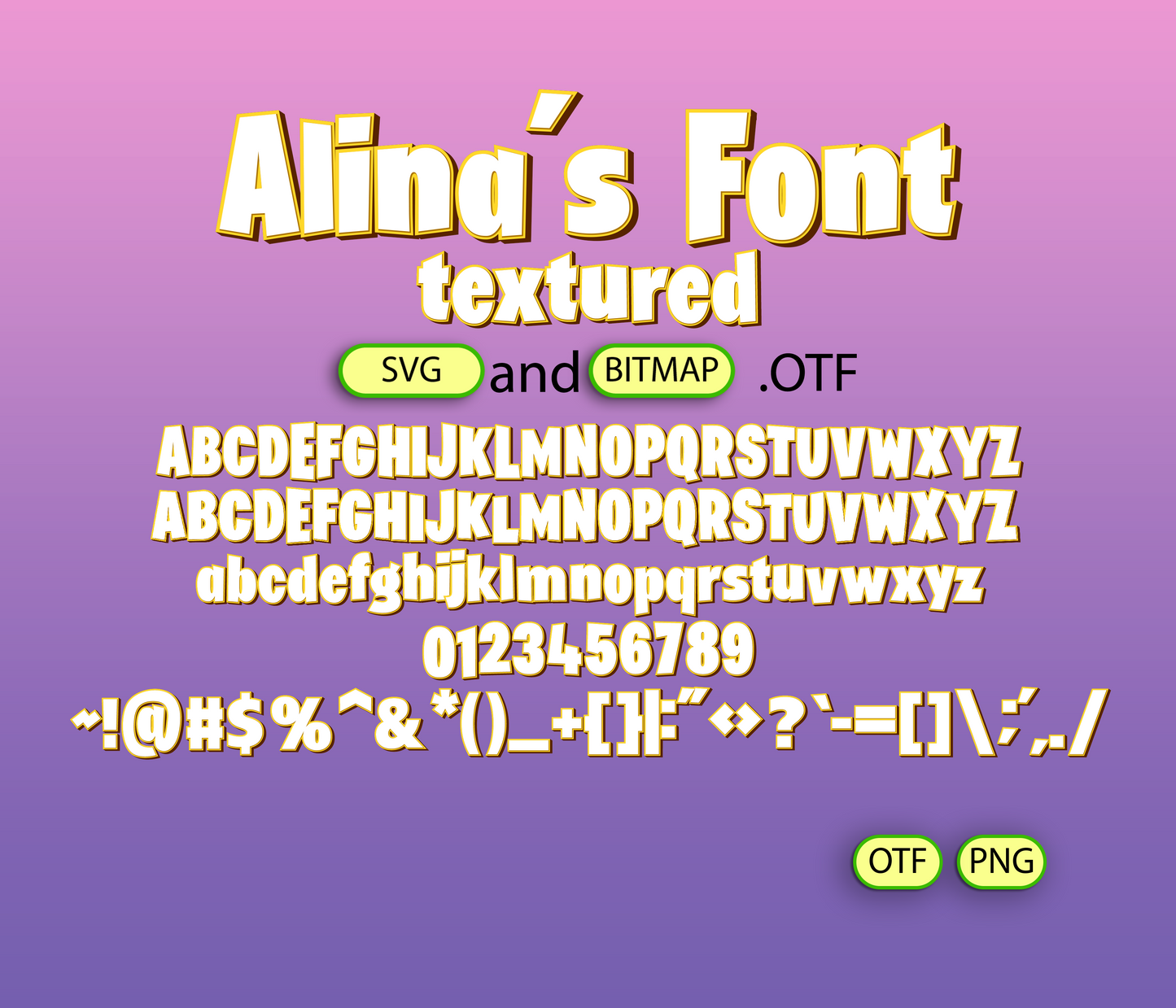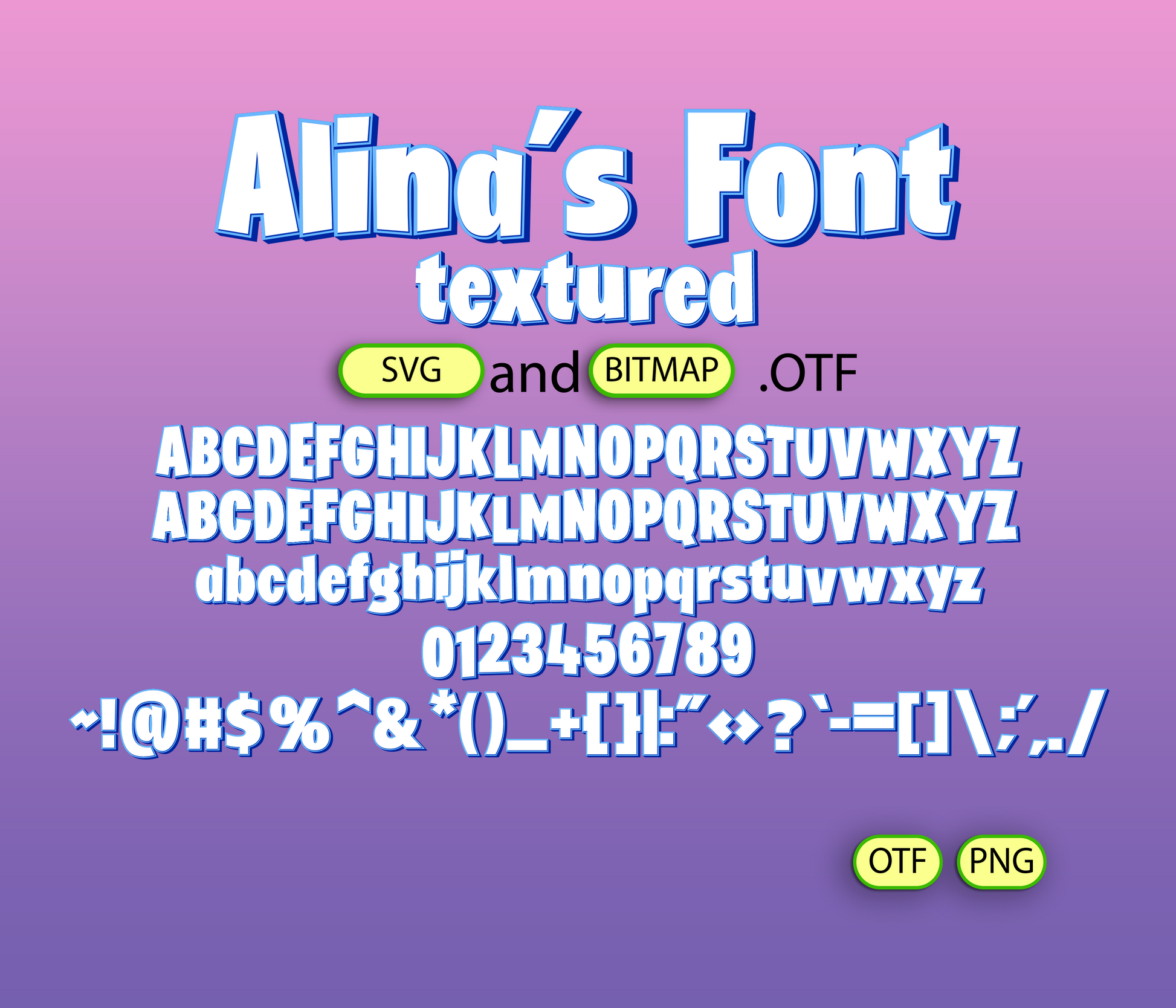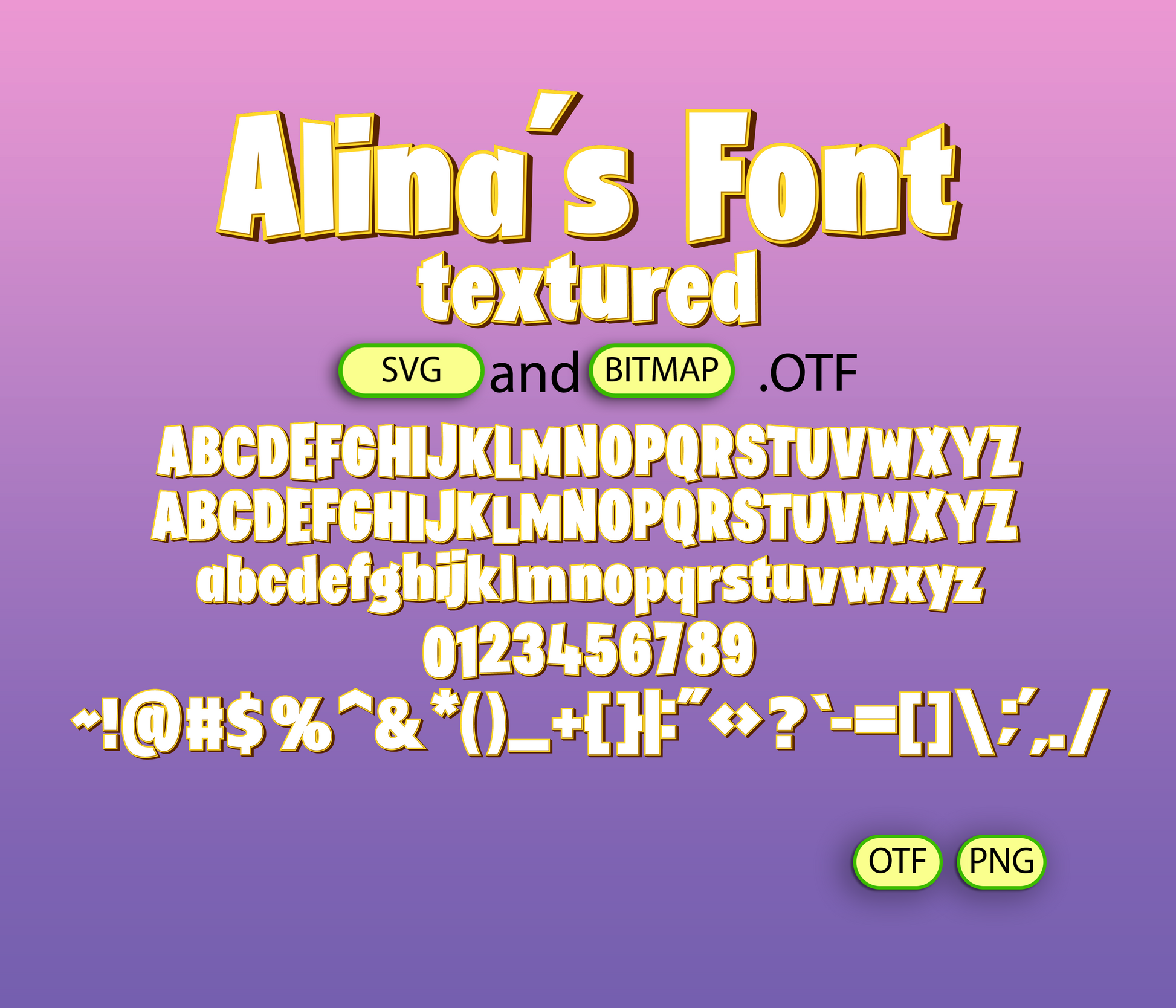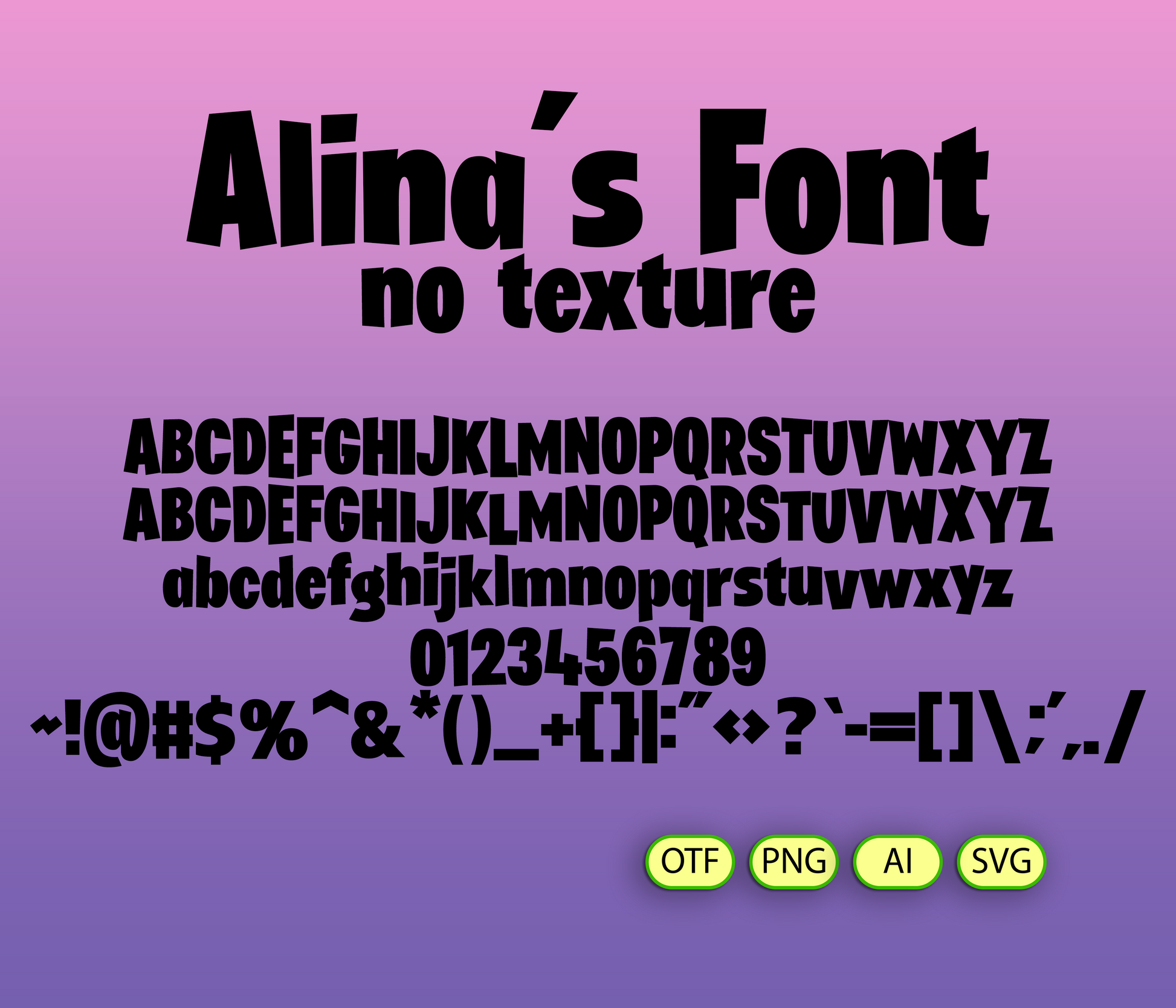
Battle Royale Champions Font Textured Bundle
Step into the vibrant world of competitive gaming with our Battle Royale Champions font, capturing the essence of epic battles and victory royales. Perfect for gamers, streamers, content creators, and designers, this font brings the dynamic, energetic spirit of battle royale action to your projects. Create gaming-themed materials, merchandise, or digital content with the high-energy vibe of this legendary battle arena.
Our Battle Royale Champions font features bold, dynamic lines and powerful characters reflecting the intense world of competitive gaming. Ideal for:
- Stream Graphics: Create eye-catching overlays, alerts, and banners for gaming streams that capture the excitement of battle royale action.
- Gaming Content: Perfect for thumbnails, video intros, and social media posts that showcase your gaming achievements.
- Digital Media: Enhance websites, blogs, and social media with dynamic headers and graphics that express the thrill of competitive gaming.
- Event Materials: Add authentic flair to gaming tournaments, esports events, and competitive gaming gatherings.
- Personal Projects: Bring gaming excitement to merchandise designs, DIY crafts, and room decor inspired by the world of battle royale.
Our font pays tribute to the beloved world of competitive gaming, empowering your designs with its high-energy and victorious spirit. Whether crafting stream assets, designing merchandise, or adding a dynamic touch to personal projects, this font communicates the bold essence of battle royale action. Ready to inject gaming excitement into your creations? This font is your key to exciting, impactful design.